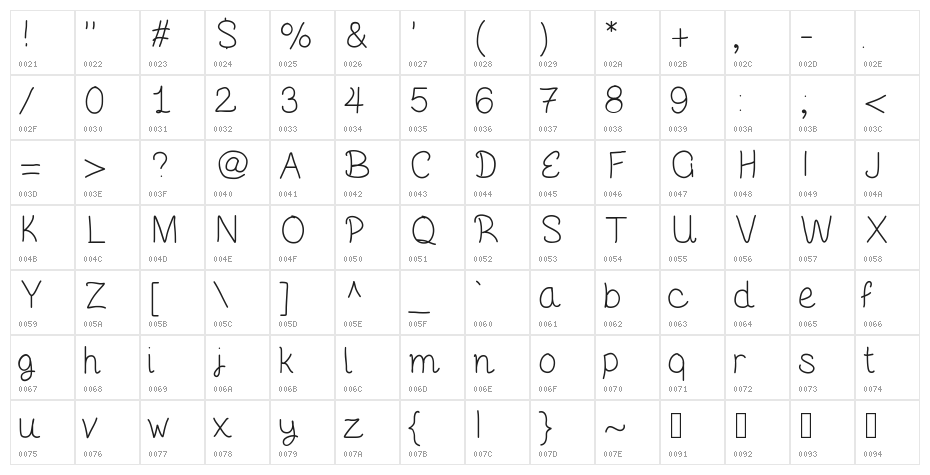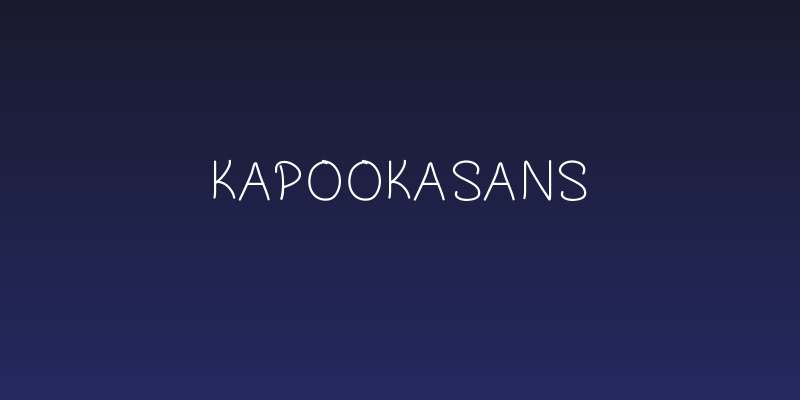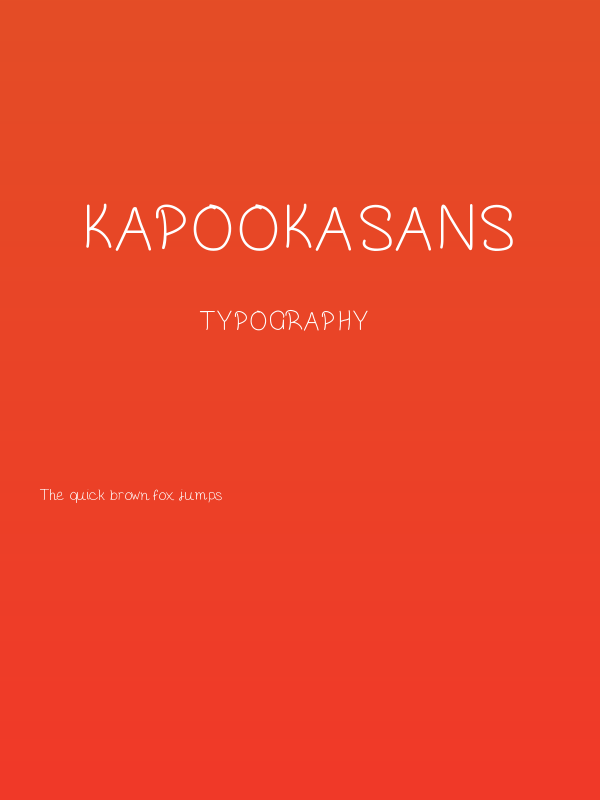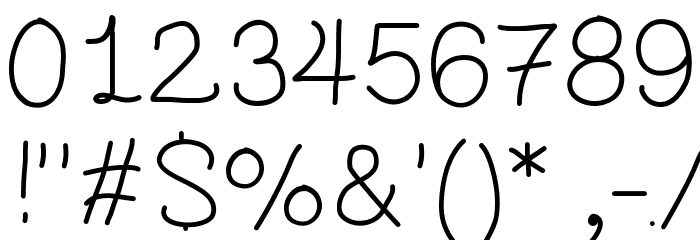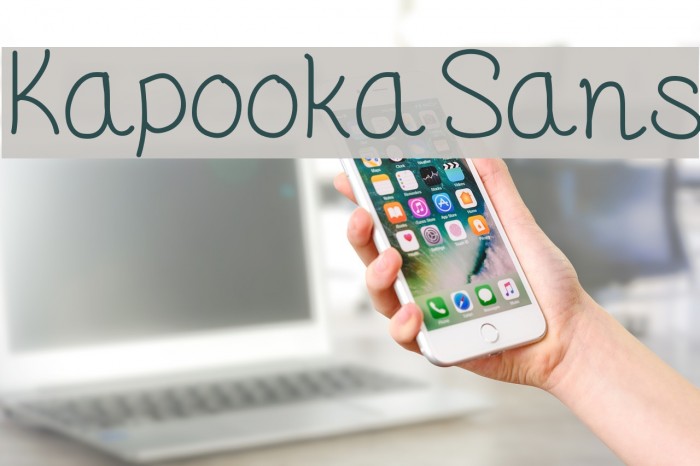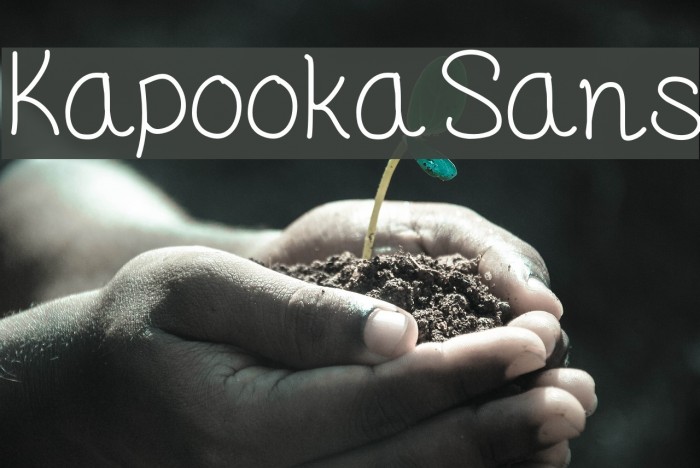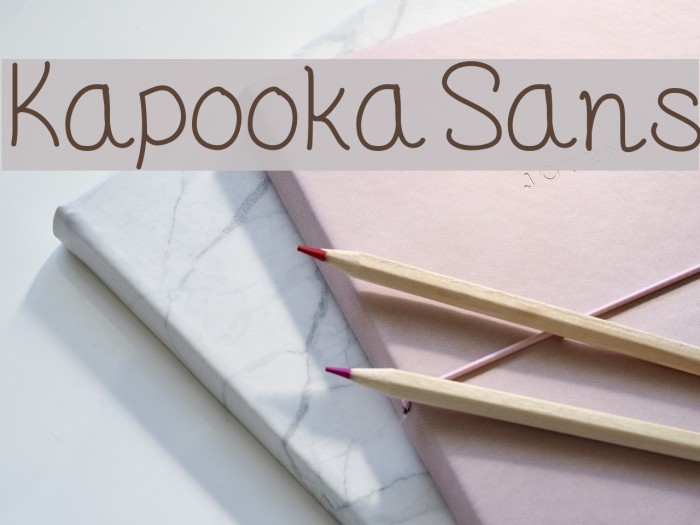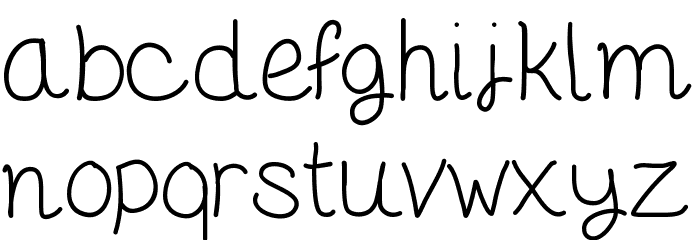
KapookaSans Font
KapookaSans Description
This playful and whimsical font features a handwritten style with a casual and friendly appearance. The characters are rounded and slightly irregular, giving them a charming and approachable feel. The uppercase letters maintain a consistent height, while the lowercase letters have a slight bounce, adding to the font's lively character. The numerals are clear and easy to read, matching the overall style of the alphabet. Special characters are included, maintaining the same playful aesthetic. This font is perfect for projects that require a personal touch or a fun, informal vibe.
KAPOOKASANS UPPERCASE
KAPOOKASANS LOWERCASE
KAPOOKASANS OTHER CHARS